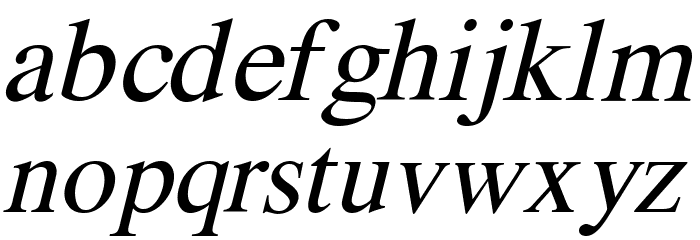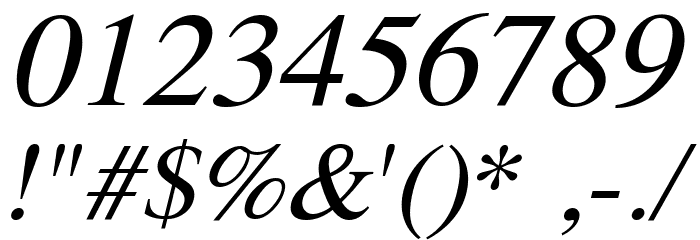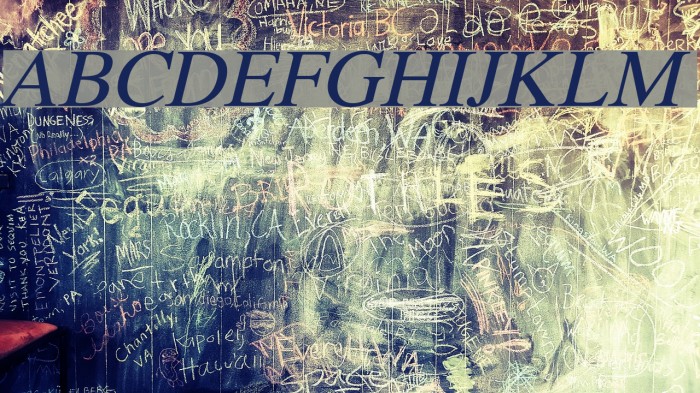
Pravda Italic Font
This font exudes a classic elegance with its italicized serif style. The letters are gracefully slanted, providing a sense of movement and sophistication. Each character is meticulously crafted with fine serifs that add a touch of tradition and formality. The uppercase letters stand tall with a dignified presence, while the lowercase letters maintain a harmonious flow. Numbers are clear and distinct, ensuring readability. The special characters are thoughtfully designed to complement the overall aesthetic, making this font versatile for various applications.
A classic italic serif font with elegant, slanted characters and fine serifs.
- Proposed Projects: Ideal for formal invitations, editorial design, branding projects, and elegant packaging.
- Category: Serif
- Overall Style: Classic
- Use Case: Headlines, Body text, Logos